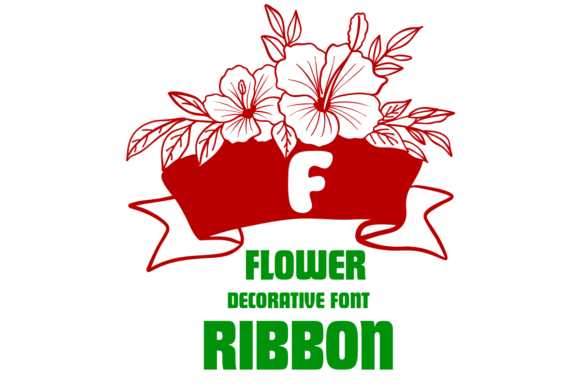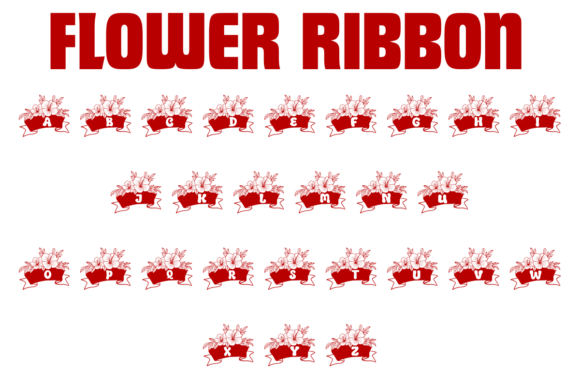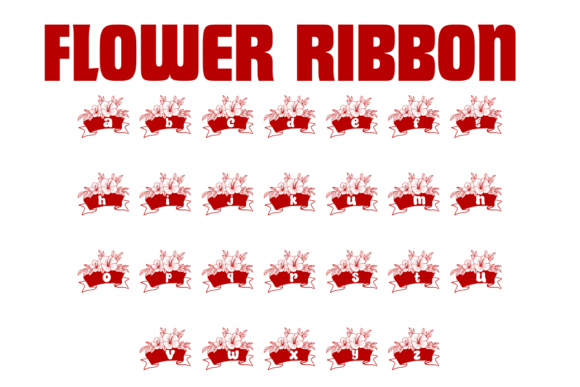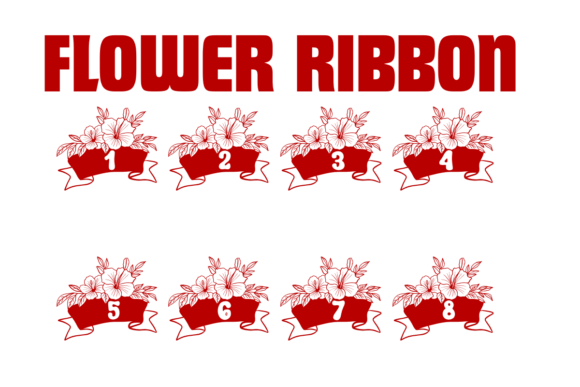
Flower Ribbon Font
About the Flower Ribbon Font
Make a bold statement with Flower Ribbon Font, a powerful and memorable font. Flower Ribbon is a decorative font. You can use it for taking notes, writing a diary, or making greeting cards. However, you can still use it for other designs, such as banners, content, mugs, cards, shirts, stationery, social media posts, and more!
Flower Ribbon’s decorative style shines in headlines, short text blocks on invitations or packaging, and social media graphics. Its playful nature makes it ideal for branding projects targeting a younger demographic or those emphasizing a fun, whimsical feel. Avoid using it for body text or large amounts of continuous reading; its intricate details can become visually overwhelming.
Consider pairing Flower Ribbon with a clean sans-serif like Open Sans for a balanced contrast, or a classic serif font such as Garamond for a more sophisticated look. A simple geometric sans-serif could also work well, providing a modern counterpoint to the font’s organic forms.
The font projects a lighthearted, friendly personality. It is best suited for brands and projects that convey joy, creativity, and approachability. Using it sparingly and strategically will maximize its impact.